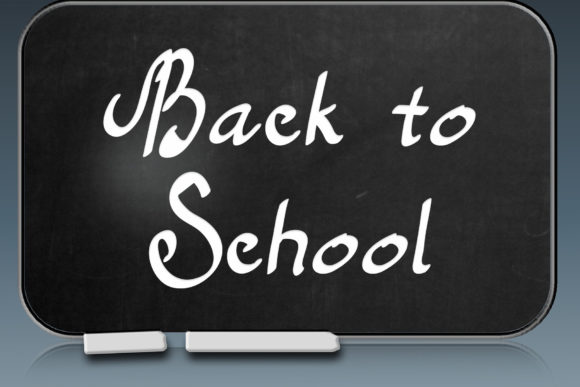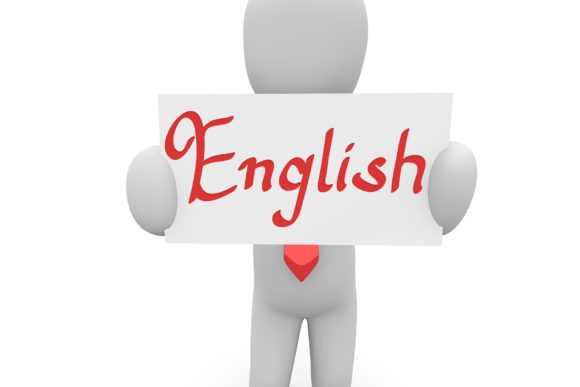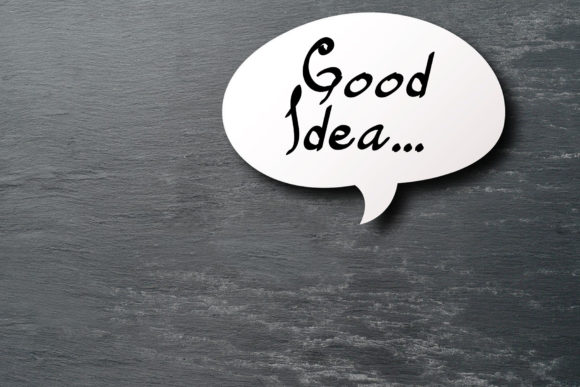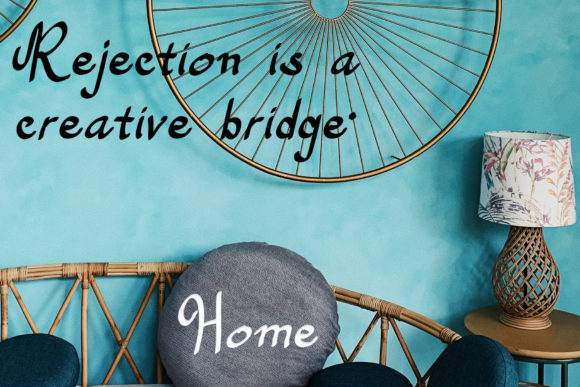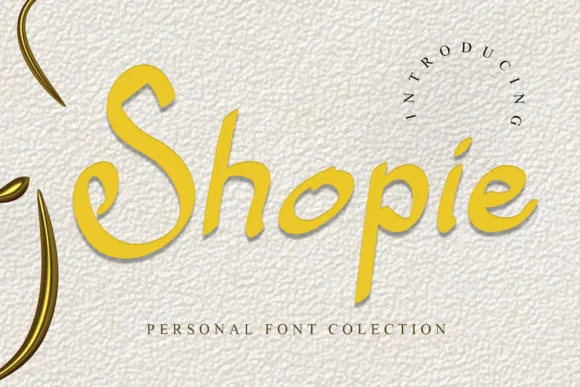
Shopie Font
About Shopie Font
Shopie is a chic and refined script font that exudes sophistication and elegance. With its stylish alternates and ligatures, this font adds a touch of luxury to any project. Whether you’re working on logos, branding materials, invitations, stationery, or social media posts, Shopie is the perfect choice.
The font’s flowing and graceful letterforms create a sense of elegance and class. Each character is carefully crafted to ensure a harmonious and balanced overall look. The stylish alternates and ligatures provide you with even more design options, allowing you to customize and create unique and eye-catching typography.
Shopie’s versatility makes it suitable for a wide range of projects. Its refined style is well-suited for high-end brands, fashion and beauty-related designs, wedding invitations, and sophisticated event promotions. The font adds a touch of sophistication and exclusivity to your designs, making them stand out and leave a lasting impression.
Whether you’re using Shopie for print or digital designs, its clean and legible letterforms ensure readability in various sizes. The font remains elegant and distinct, even when used in small text or as part of larger headlines. This versatility allows you to maintain a consistent and polished look across different design elements.
Shopie’s sophistication and elegance are further enhanced by its careful attention to detail. The smooth curves and delicate strokes of each letter create a sense of craftsmanship and refinement. The font’s overall aesthetic is timeless and versatile, making it a valuable asset in your font library.
In addition, Shopie’s stylish alternates and ligatures provide you with endless possibilities for creating unique and personalized designs. You can easily access these additional glyphs and swashes to add extra flair and elegance to your typography. The font’s PUA encoding ensures easy access to all the special characters, enabling you to unleash your creativity without any limitations.
In summary, Shopie is a chic and refined script font that exudes sophistication and elegance. Its stylish alternates and ligatures enhance its versatility, making it a perfect match for a wide range of projects. Whether you’re creating logos, branding materials, invitations, or social media posts, Shopie adds a touch of luxury and exclusivity to your designs.